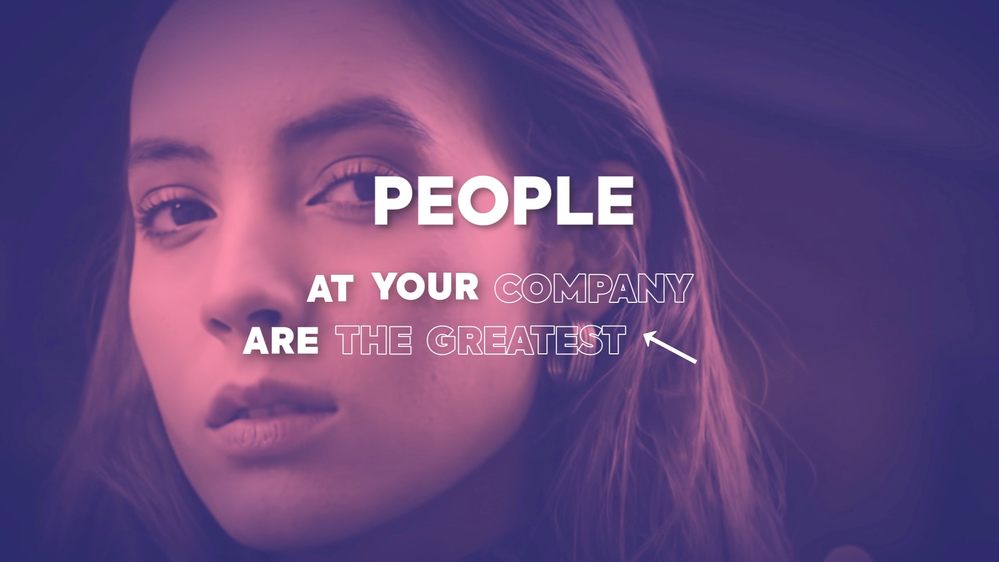
Font Stroke Effect Camtasia
Learn how to create a clean typography font outline stroke effect in Camtasia using built-in effects, no plugins needed. This quick tutorial covers two simple methods using Media Matte, Border, and Remove a Color to achieve that bold, stroked text look.